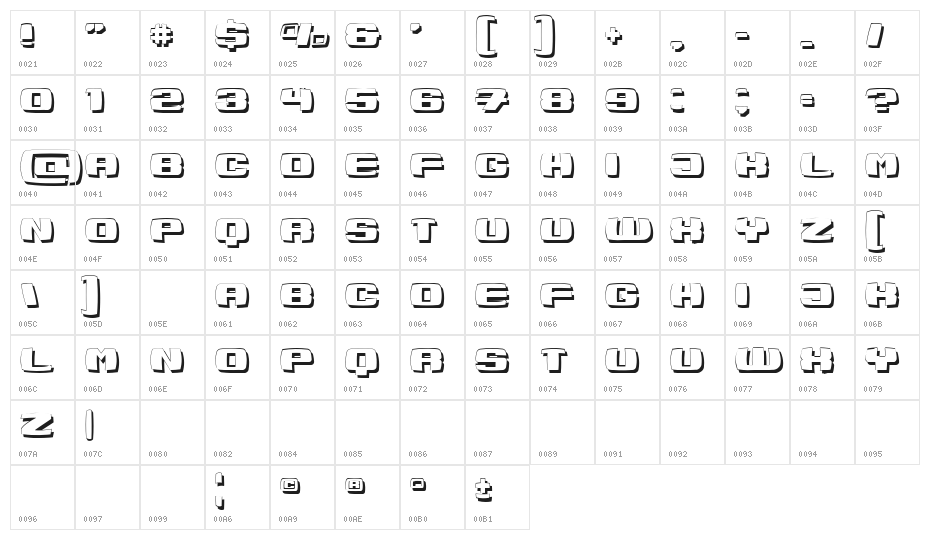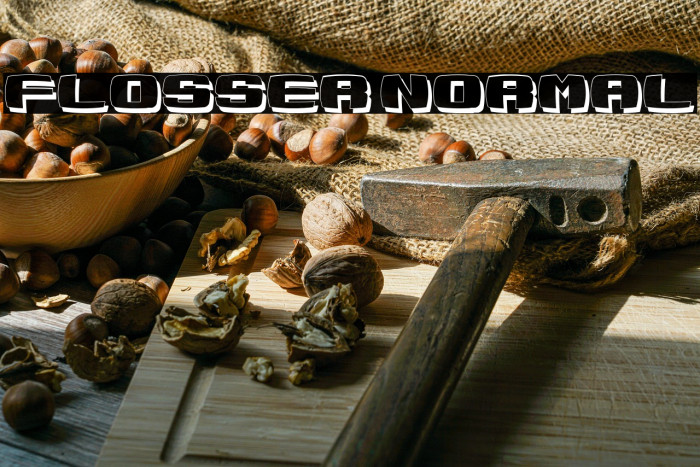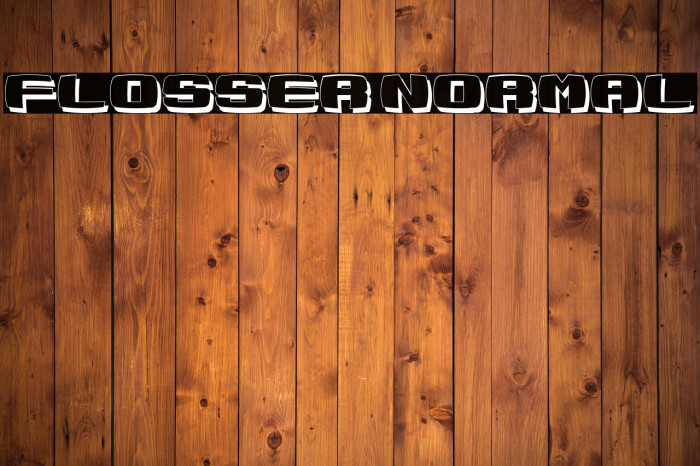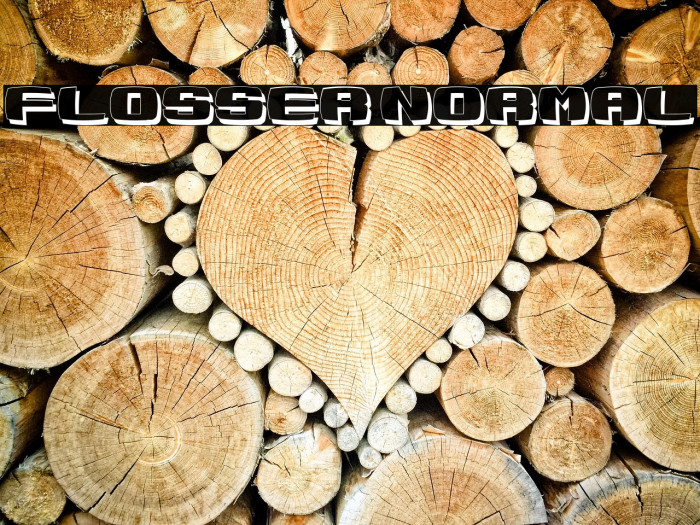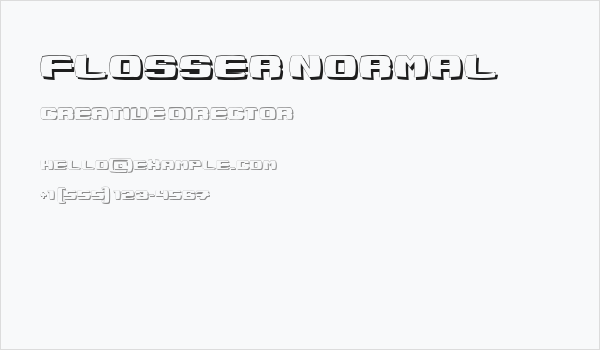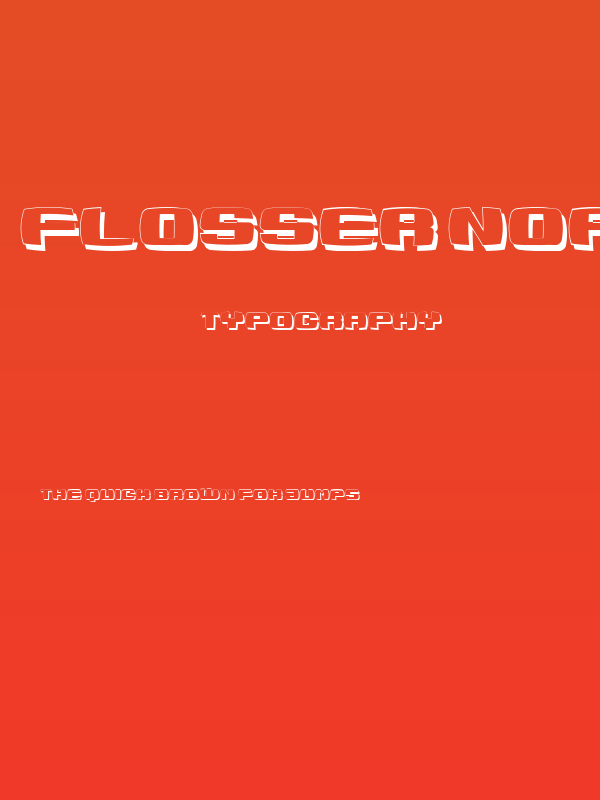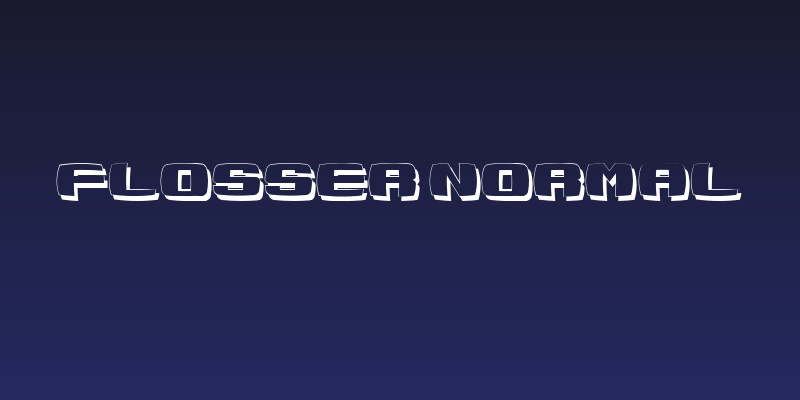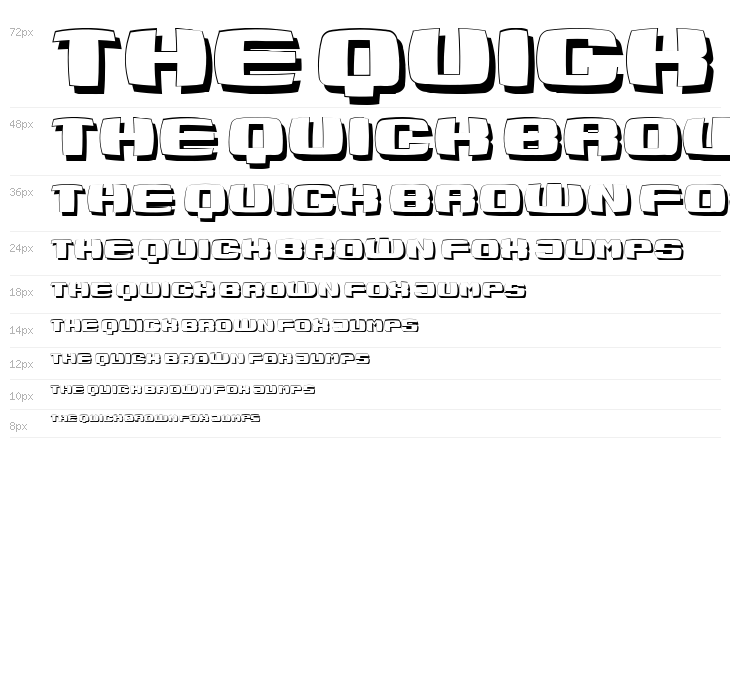
Flosser Normal Font
Flosser Normal Description
This font features a bold, three-dimensional style with a distinct shadow effect that gives it a striking, impactful appearance. The characters are wide and rounded, with a playful yet robust aesthetic. The uppercase and lowercase letters maintain a consistent style, with the numerals and special characters following suit. The shadowing adds depth, making it suitable for eye-catching designs. Its unique style stands out, making it ideal for projects that require a strong visual presence.
| Proposed Projects | Ideal for posters, logos, video game graphics, and any design requiring a bold, standout typeface. |